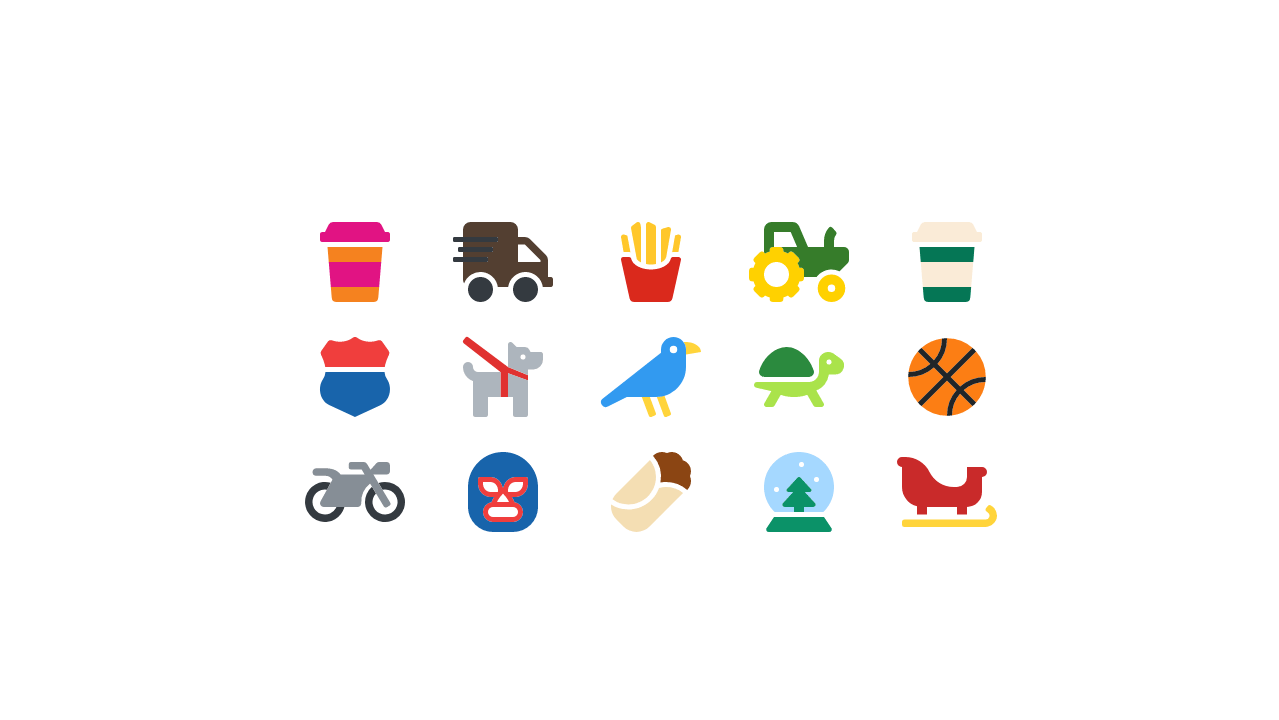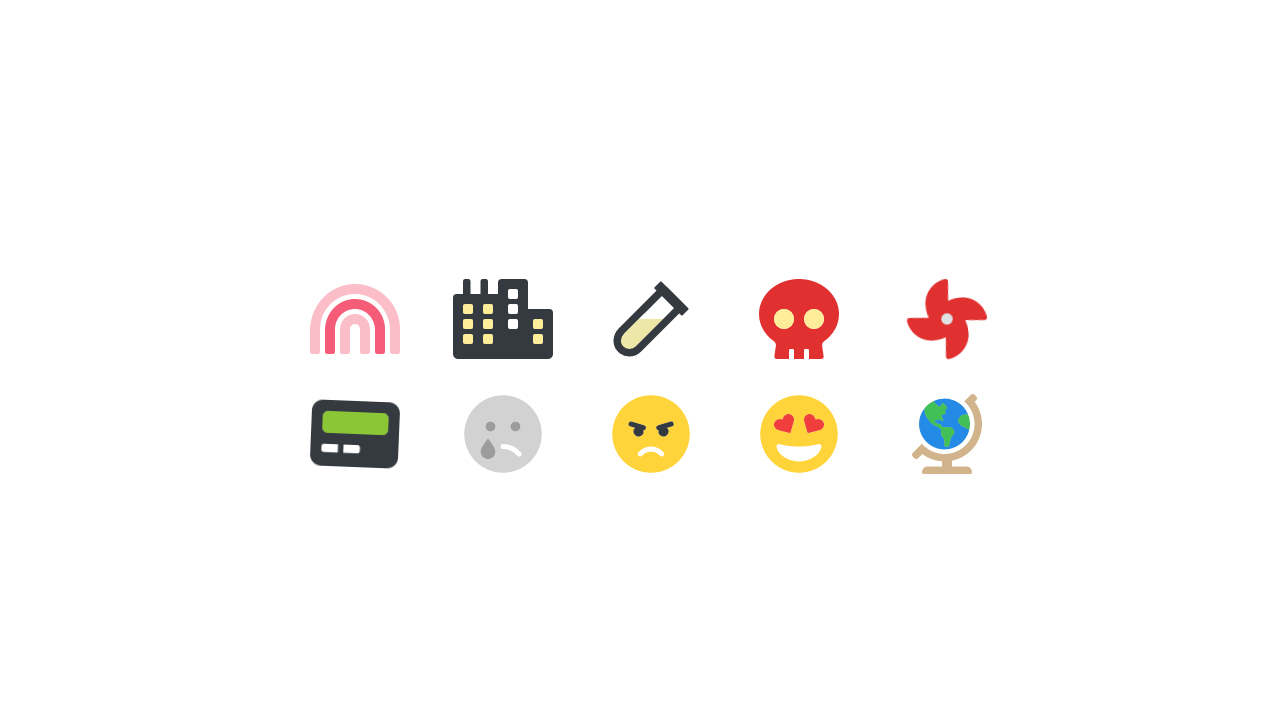
Professionally designed pixel perfect.
Font awesome duotone. The worlds most popular and easiest to use icon set just got an upgrade. For each icon well upload 2 icons one for each layer. Font awesome has you covered. Its very easy to manipulate this.
But well also use after to set a top layer. Were super excited to officially launch duotone the newest icon style to join the font awesome familyinitially a stretch goal from our 2017 kickstarter campaign for font awesome pro duotone was originally planned as a subset of our 200 most popular icons. Font awesome pro v5120 webdesktop duotone icons get vector icons and social logos on your website with font awesome the webs most popular icon set and toolkit. And the nice thing is this is not all predefined.
Get vector icons and social logos on your website with font awesome the webs most popular icon set and toolkit. Did you ever need a onoff button with 2 tones. Professionally designed pixel perfect each and every symbol is designed from scratch against guidelines and standards forged. To start you need font awesome.
Font awesome pro v5120 webdesktop duotone icons. Just like a regular font awesome icon well be using the before pseudo element well use this for our bottom layer. Add this to youre html.